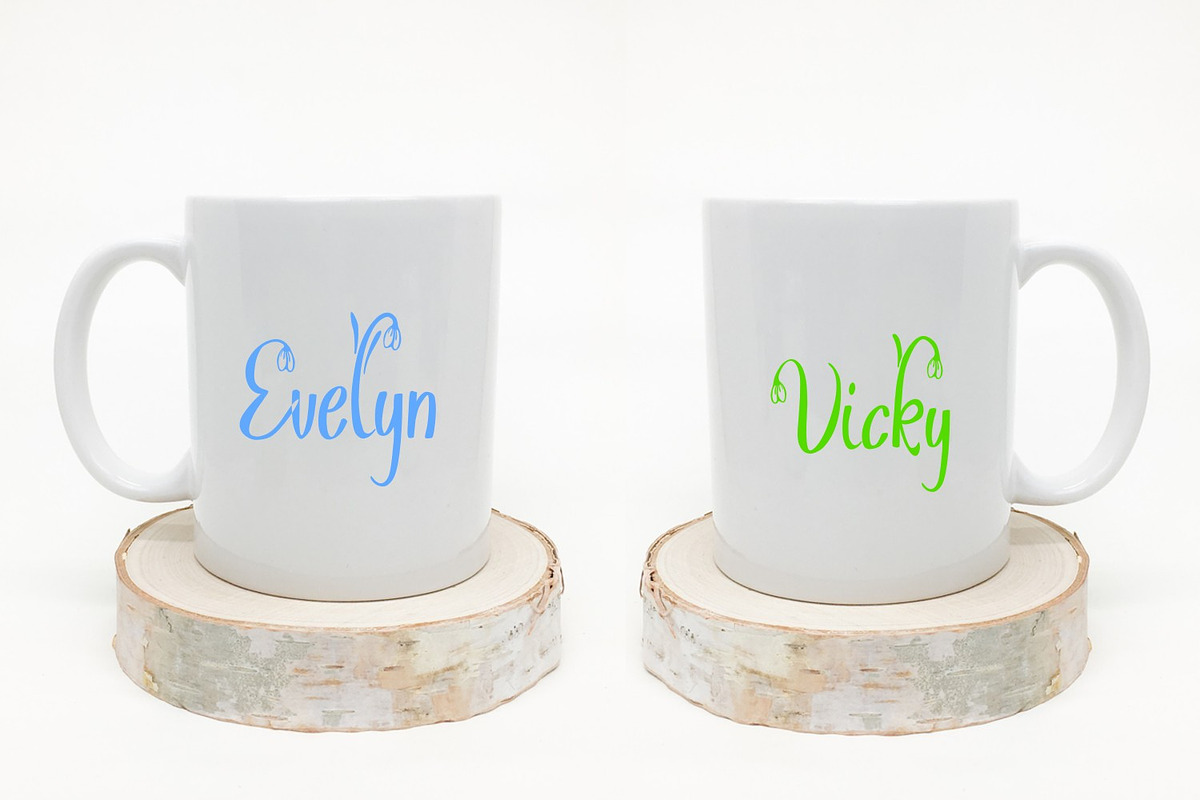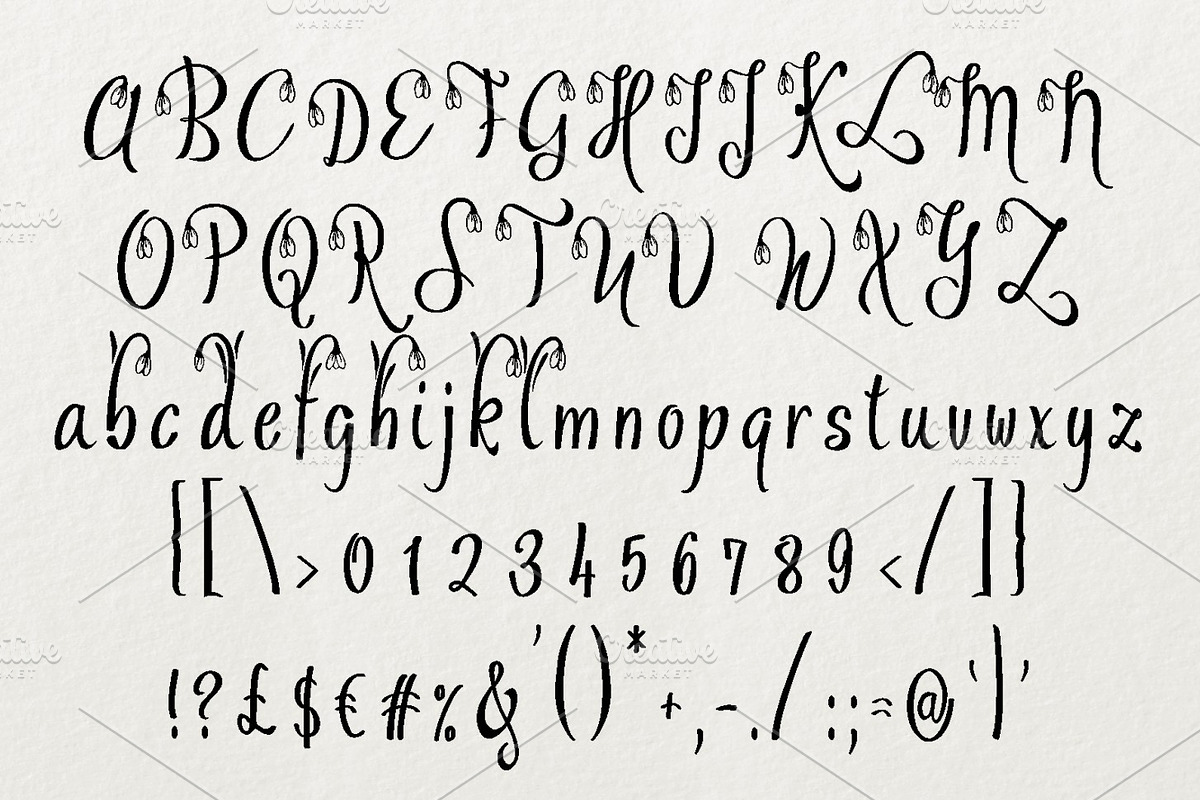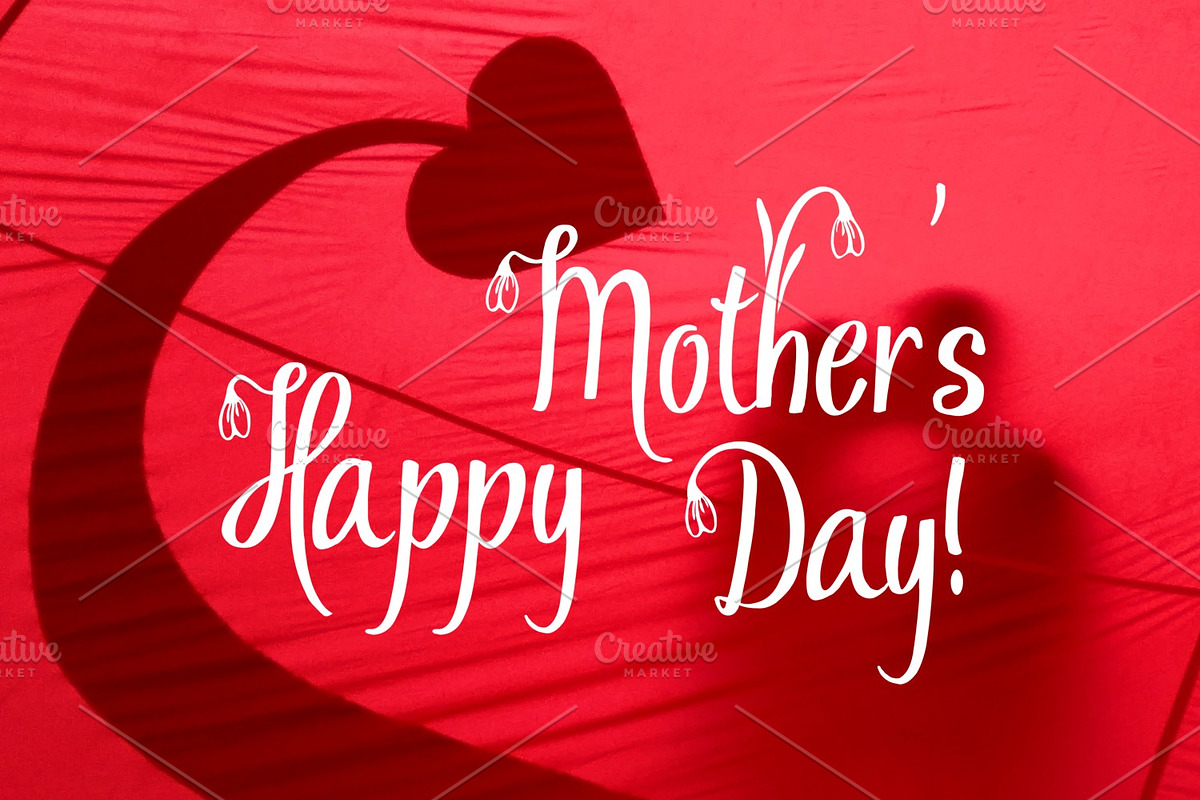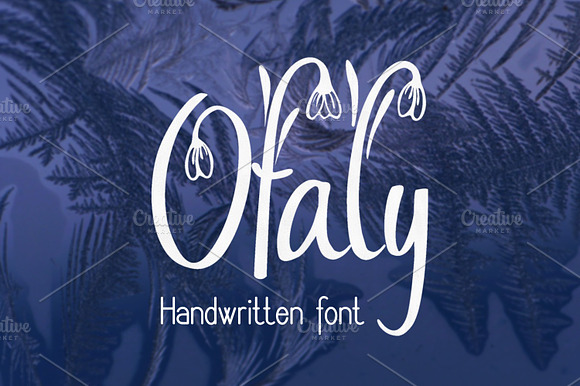
Ofaly
Introducing Ofaly, a snowdrops decorated typeface. Great for cards and many craft projects! Download and use across a huge range of programs such as Adobe programs, Corel programs, Cricut and many others!
Ofaly by Digital Typeface Studio fits naturally into Branding, posters, packaging, typography.